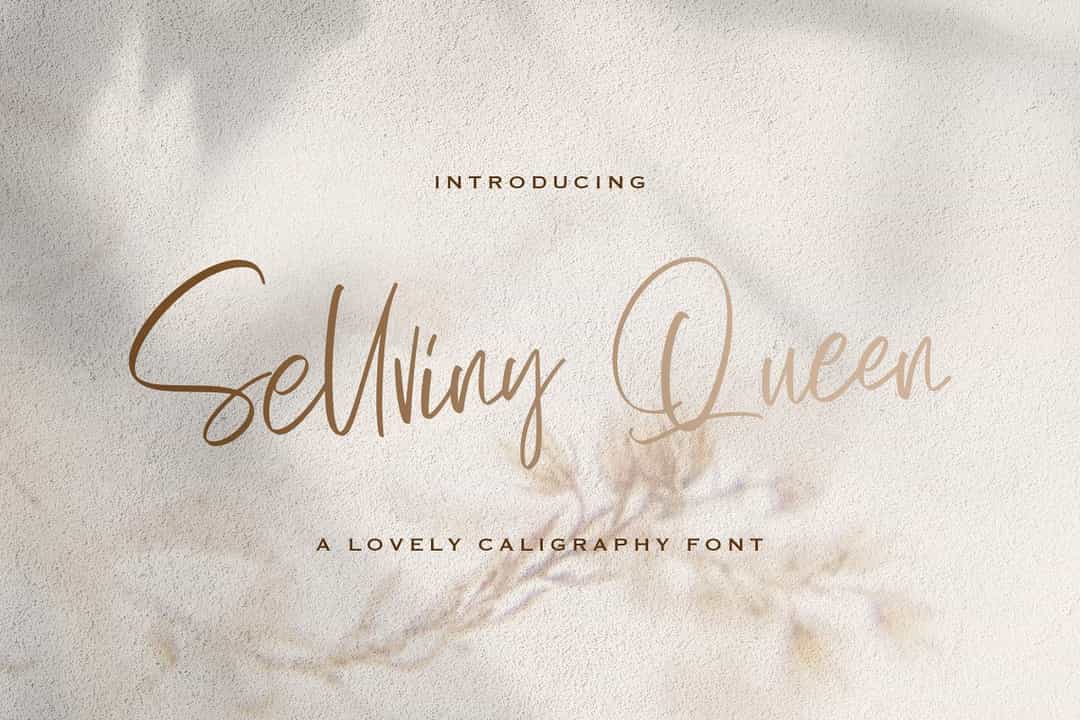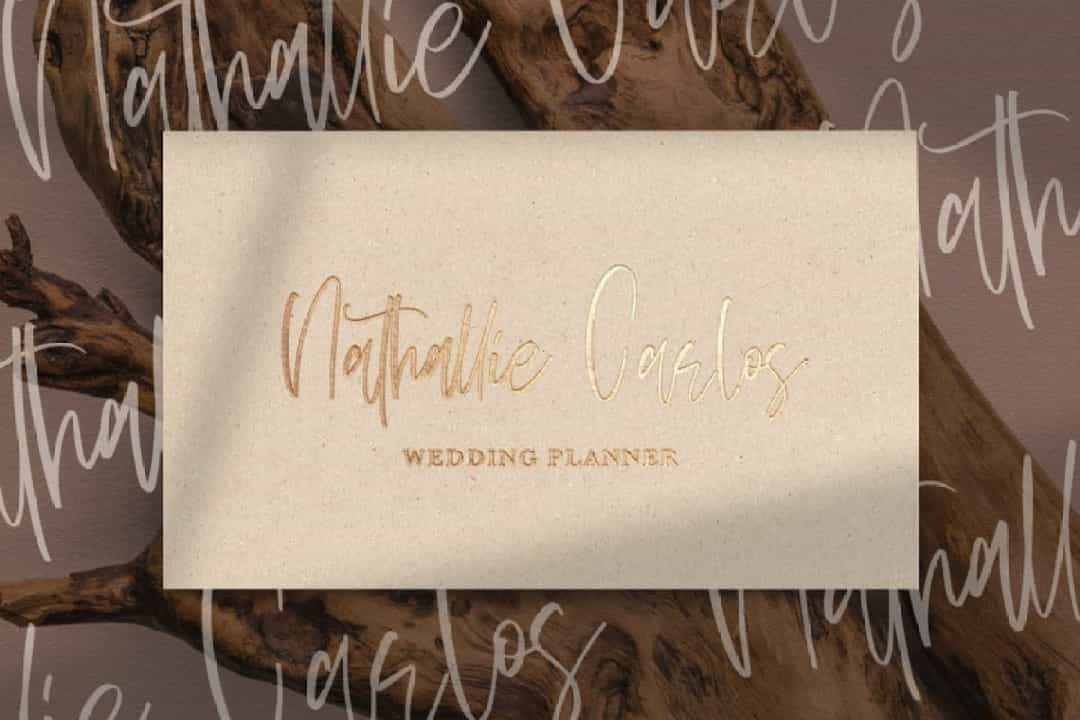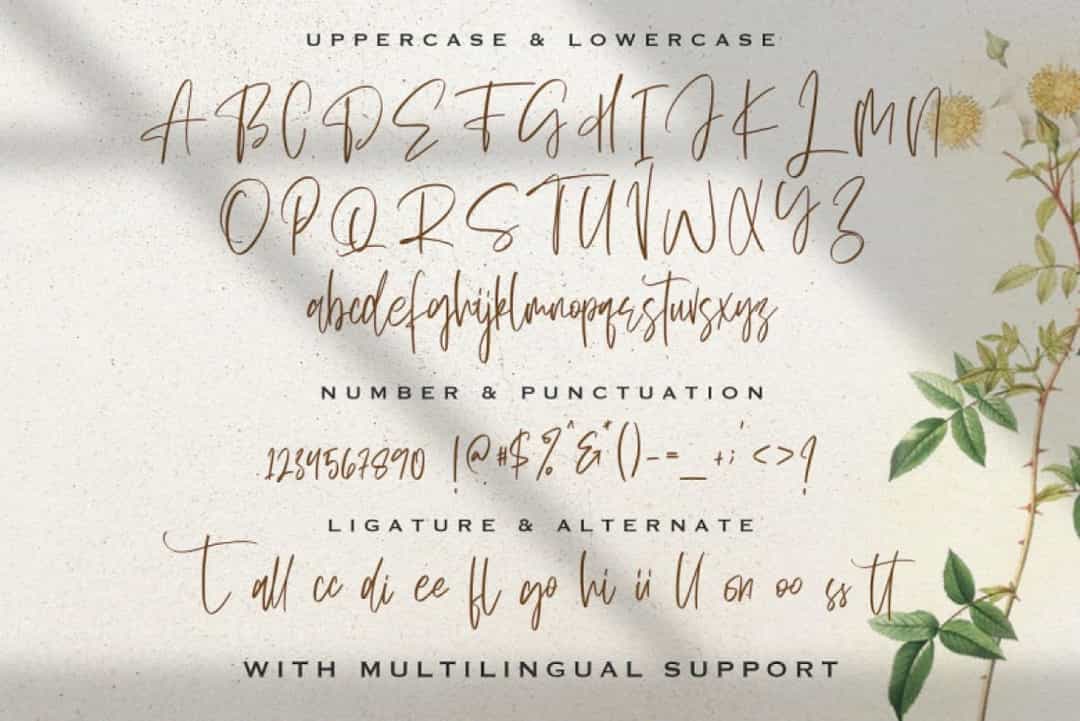
Discover Sellviny Queen Handwritten Script Font, part of the Handwritten Script collection—a versatile and unique font perfect for adding a personal touch to your projects. Download it for free and enjoy crafting designs with style, from invitations to social media posts. This font is available exclusively for personal use, giving you the freedom to create without limits. Unlock your creativity with Sellviny Queen Handwritten Script Font today!
Sellviny Queen Handwritten Script Font was introduced recently, making an elegant yet charming statement with every design that incorporates it. Perfect for wedding invitations, thank-you cards, greeting cards, quotes logos or business cards as well as any other creative project needing an individual touch, it brings life and flair into any design project!